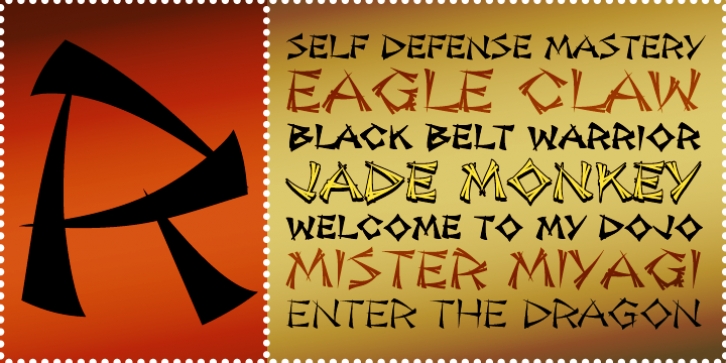
Jade Monkey BTN was designed by Brian Bonislawsky and published by Breaking the Norm. Jade Monkey BTN contains 6 styles and family package options.
Jade Monkey was inspired by the standard Chinese menu lettering and then taken to the next level.
With various styles in weight and variants such as drop shadow and split nib styles, this bad boy will lay its kung fu down on you with classic appeal.
· Jade Monkey BTN Light
· Jade Monkey BTN
· Jade Monkey BTN Black
· Jade Monkey BTN Outline
· Jade Monkey BTN Split
· Jade Monkey BTN Split Shadow